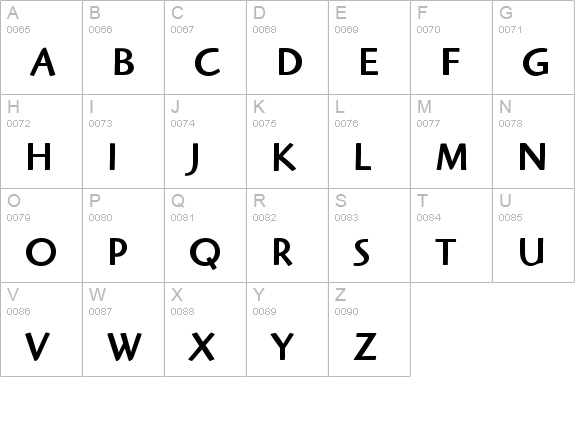
HighlanderEF-Medium is a balanced, medium-weight variant in the HighlanderEF typeface family \xE2\x80\x94 well suited to sub-headlines, navigation, and balanced editorial work.
HighlanderEF-Medium font is a sophisticated and elegant typeface that exudes a timeless charm. Its medium weight strikes the perfect balance between boldness and delicacy, making it versatile for a variety of design projects. The sleek lines and sharp edges of this font give it a modern aesthetic, while still maintaining a classic appeal. What sets HighlanderEF-Medium font apart is that it is available for free download at FontsMarket.com. This means that you can easily access this high-quality font without any cost, making it a valuable addition to your font collection. Whether you're working on branding, editorial design, or any other creative project, HighlanderEF-Medium font is sure to elevate your work with its refined and polished look.